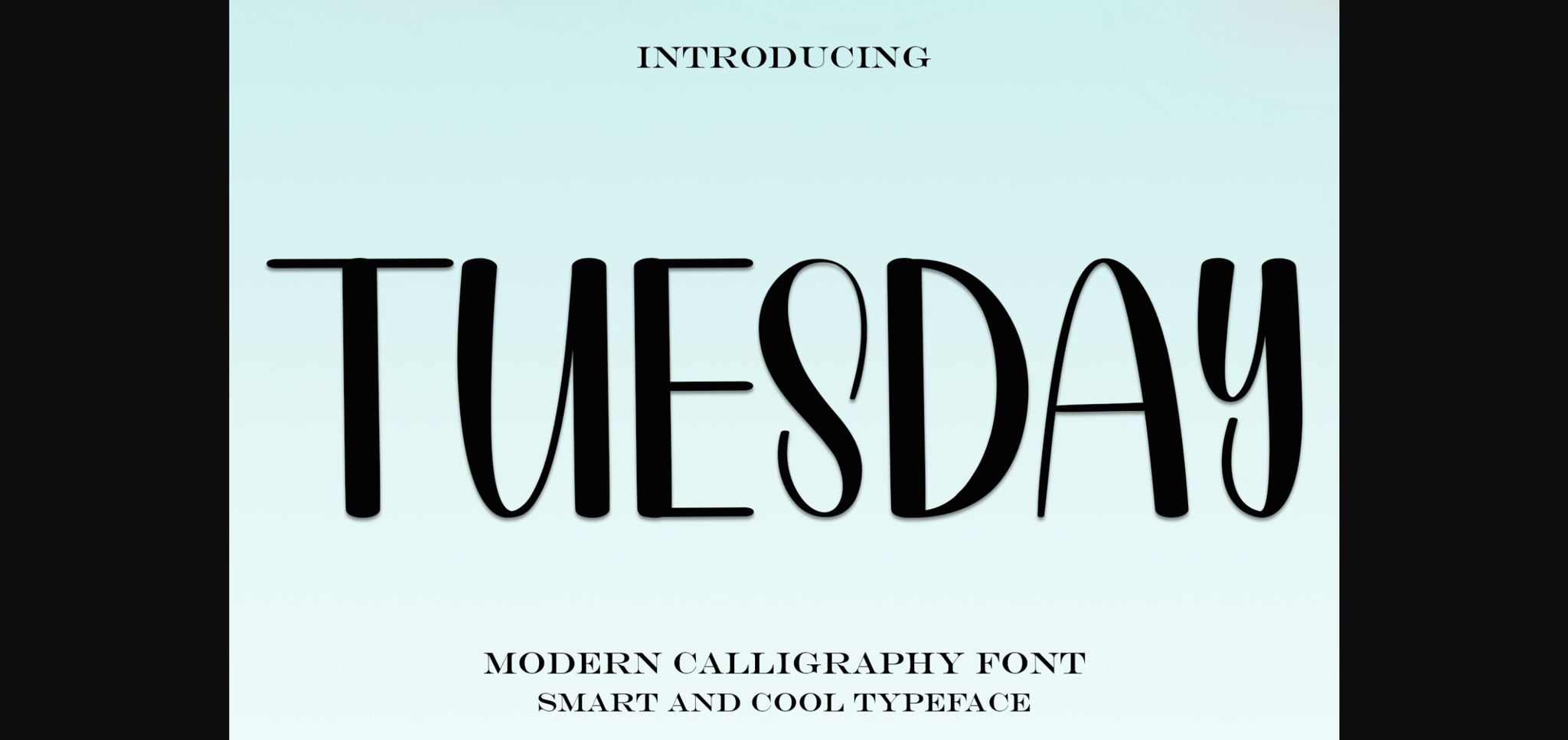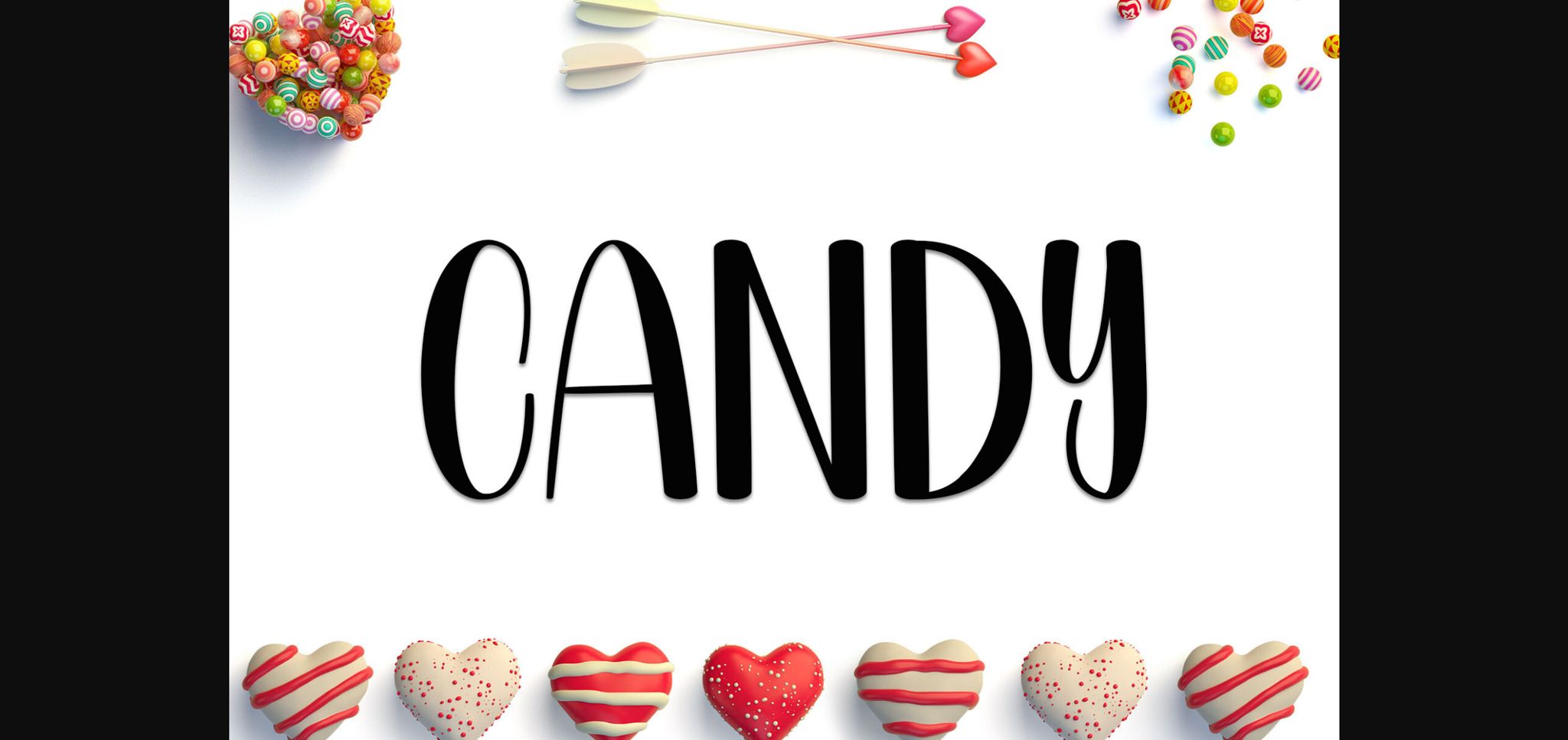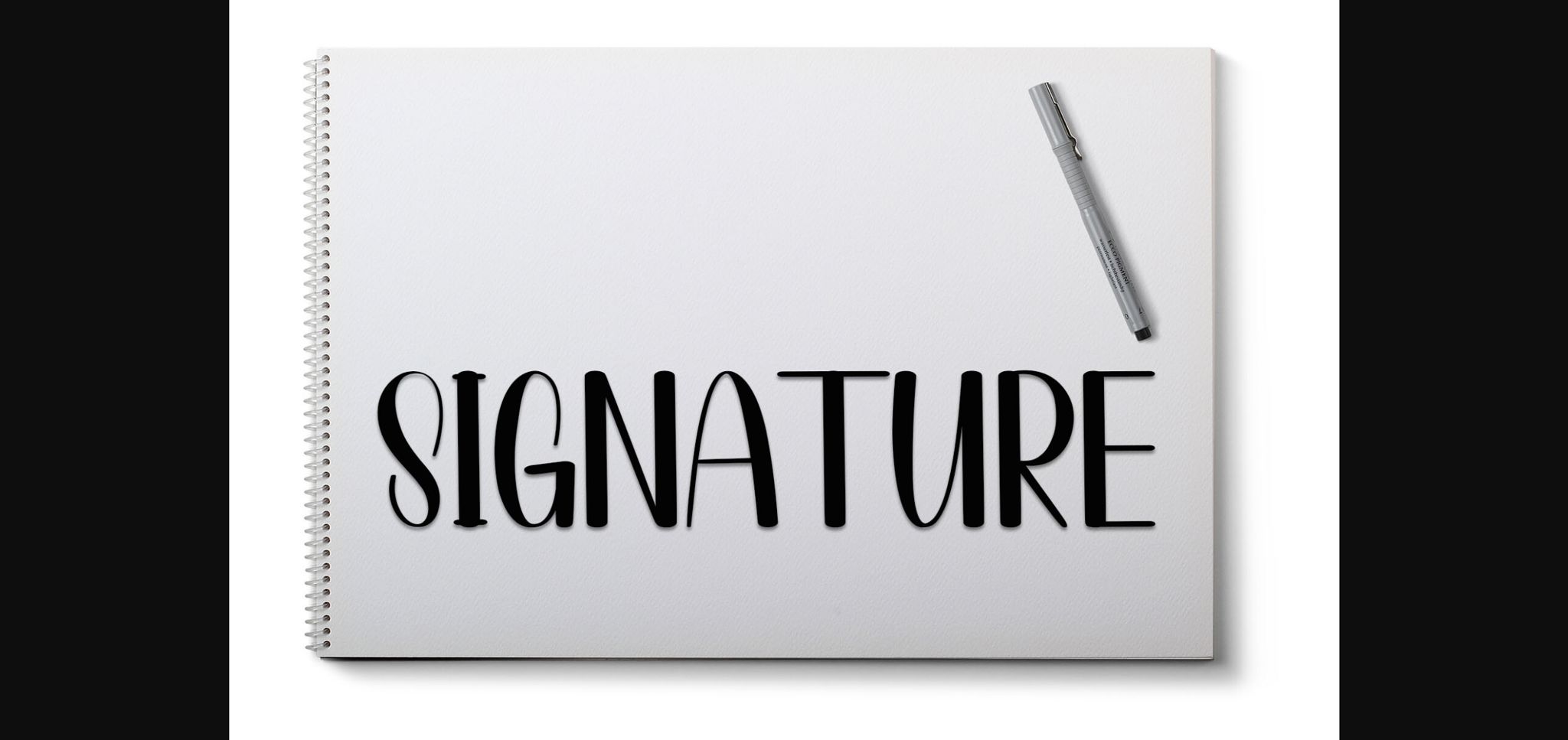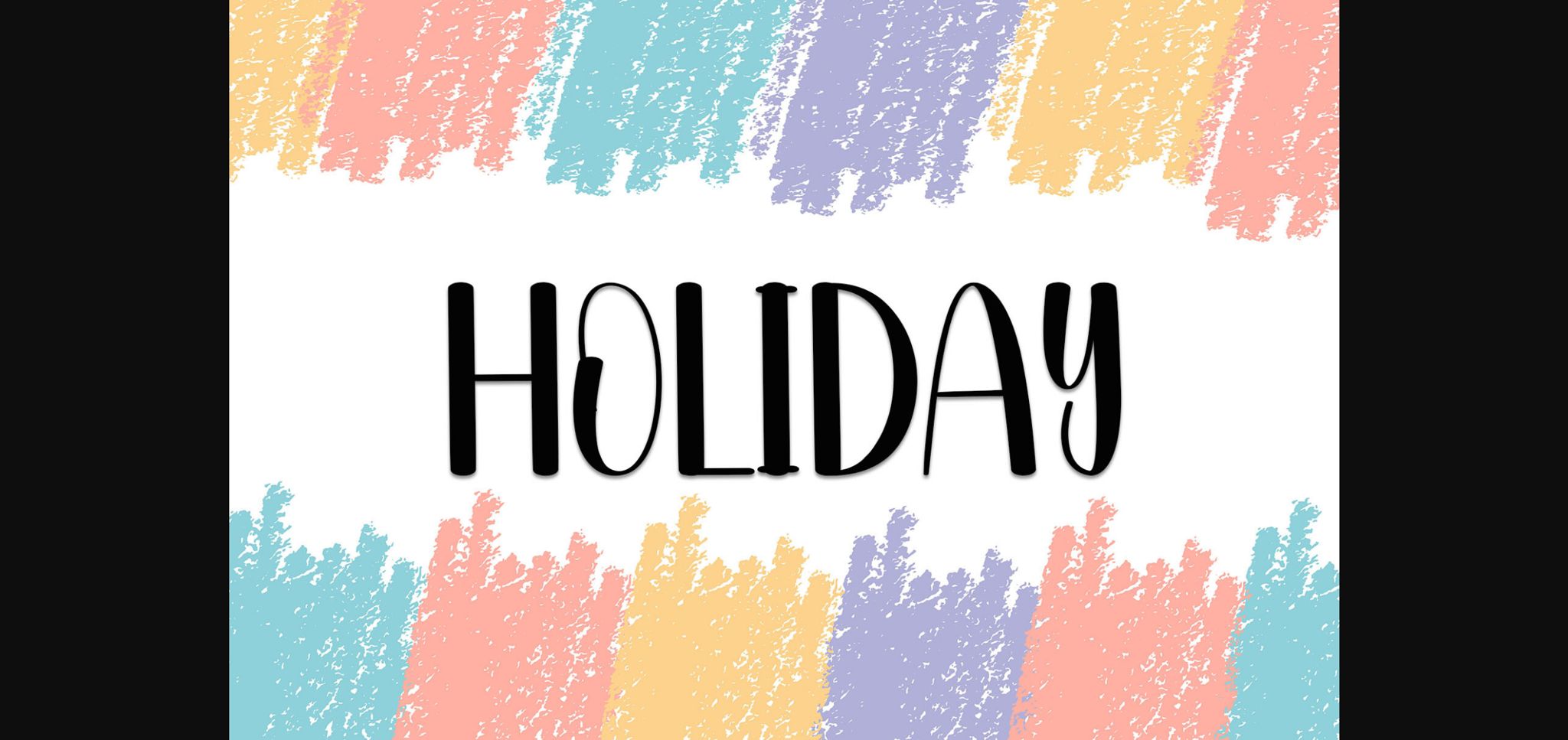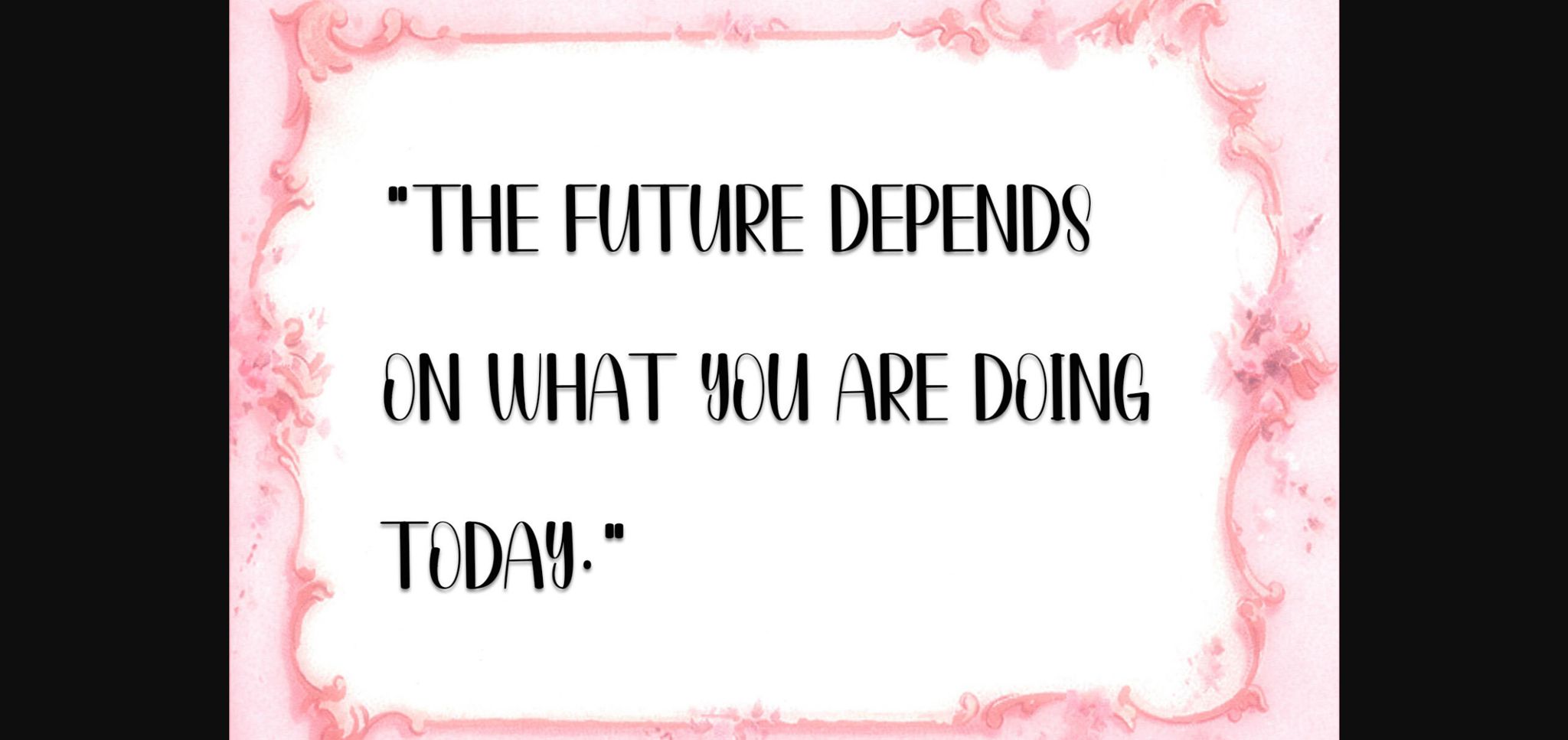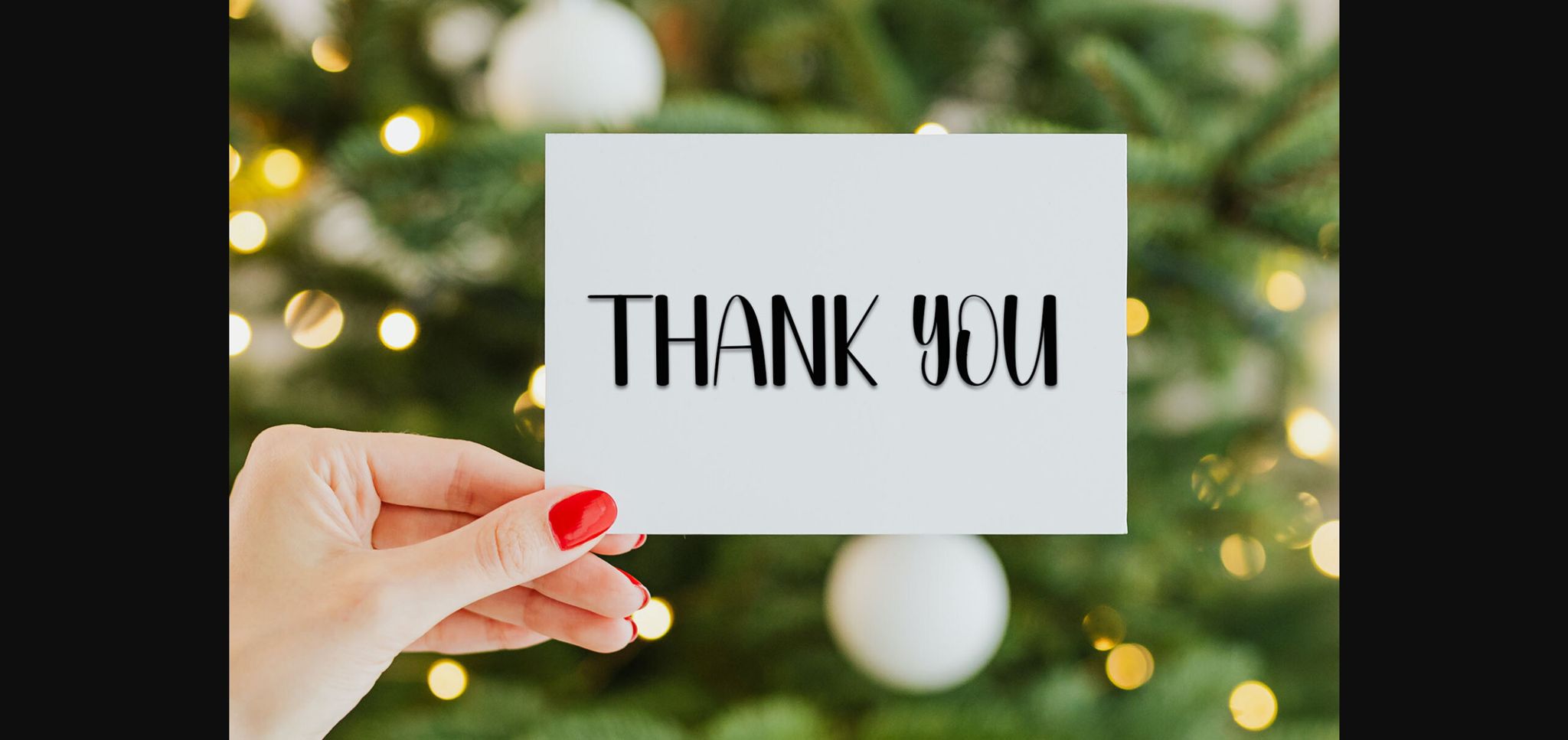
HomeSans Serif FontsTuesday Font Sans Serif Fonts Tuesday Font FacebookXPinterestWhatsApp 1 of 8 ... Tuesday Font Poster 2... Tuesday Font Poster 3... Tuesday Font Poster 4... Tuesday Font Poster 5... Tuesday Font Poster 6... Tuesday Font Poster 7... Tuesday Font Poster 8... About Tuesday Font Tuesday is a neat and casual sans-serif font. Whatever the topic, this font is perfect for your creative craft needs! DOWNLOAD NOW People also explored Modern Tattoo Font Happy Things Font Dear Sunday Font Mentions Font Magical Mystery Tour Nichostra Font Beloved Script Font Akesta Font Katlina Birthdate Font 307 0 TagsTuesdayTuesday Font Previous articleRestroom FontNext articleSunny Day Font LEAVE A REPLY Cancel reply Comment: Please enter your comment! Name:* Please enter your name here Email:* You have entered an incorrect email address! Please enter your email address here Website: Save my name, email, and website in this browser for the next time I comment. Personal Use Free Historise Personal Use Free Read more about this font Sushi Stroke Personal Use Free Read more about this font Advantage Personal Use Free Read more about this font Sebastopol Personal Use Free Read more about this font BLOG How to Install and Use Fonts on Windows, macOS, and Web Projects How to Install and Use Fonts on Windows, macOS, and Web Projects Fonts are a crucial part of design and branding. Whether you’re designing a... 5 Fonts That Will Dominate Design Trends in 2026 Exploring Font Trends Where to Buy American Fonts Online in 2024